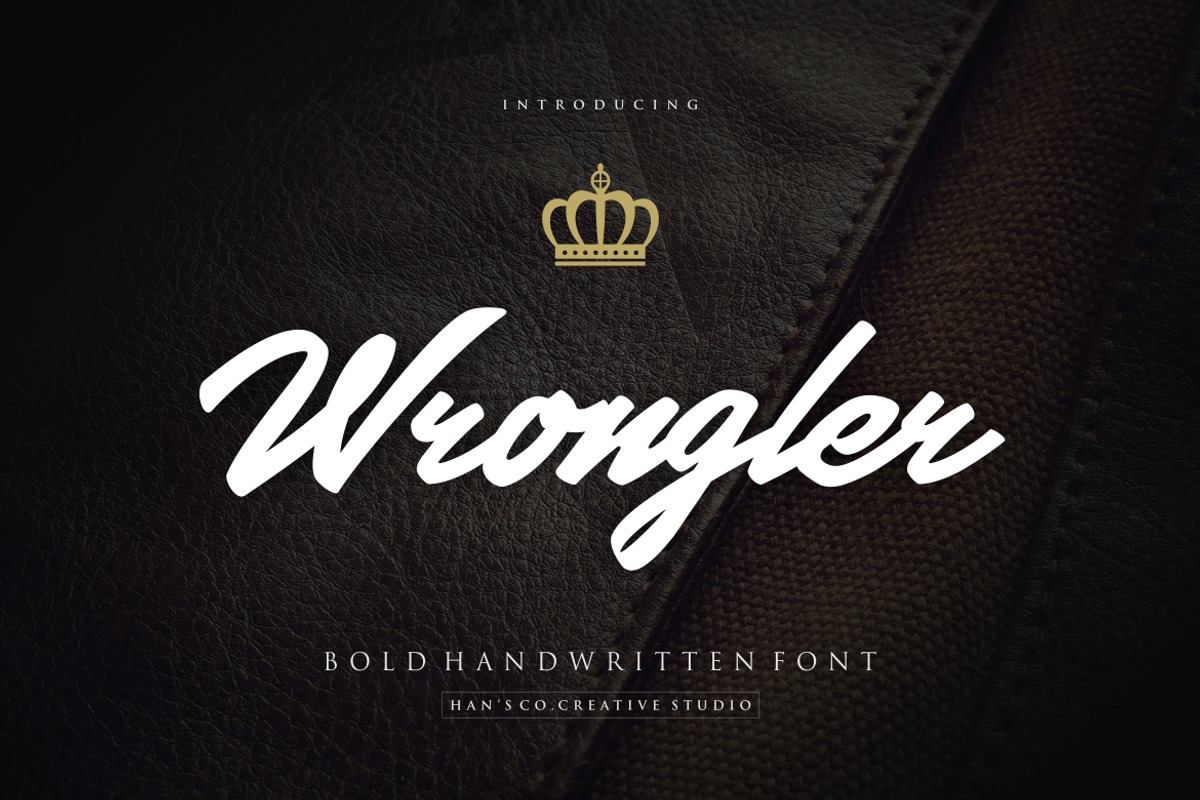
Wrongler Handwritten Font Free Download is a quirky and bold script typeface that captures the imperfect charm of real handwriting. Please note: you must purchase this font for commercial use, but you can test it through a free download. With its uneven strokes, playful curves, and raw personality, Wrongler is perfect for posters, personal branding, social media content, packaging, and artistic projects that need a touch of rebellion.
This font celebrates uniqueness and creative freedom—making it an excellent choice for designers who want their work to feel human, expressive, and unapologetically original. Whether you're crafting a standout logo or a statement graphic, Wrongler Handwritten Font Free Download adds grit and individuality to your typography. It’s fully compatible with Adobe Illustrator, Photoshop, Canva, and other major design tools. Download it today for personal use and break the rules (beautifully) with the bold character of Wrongler.